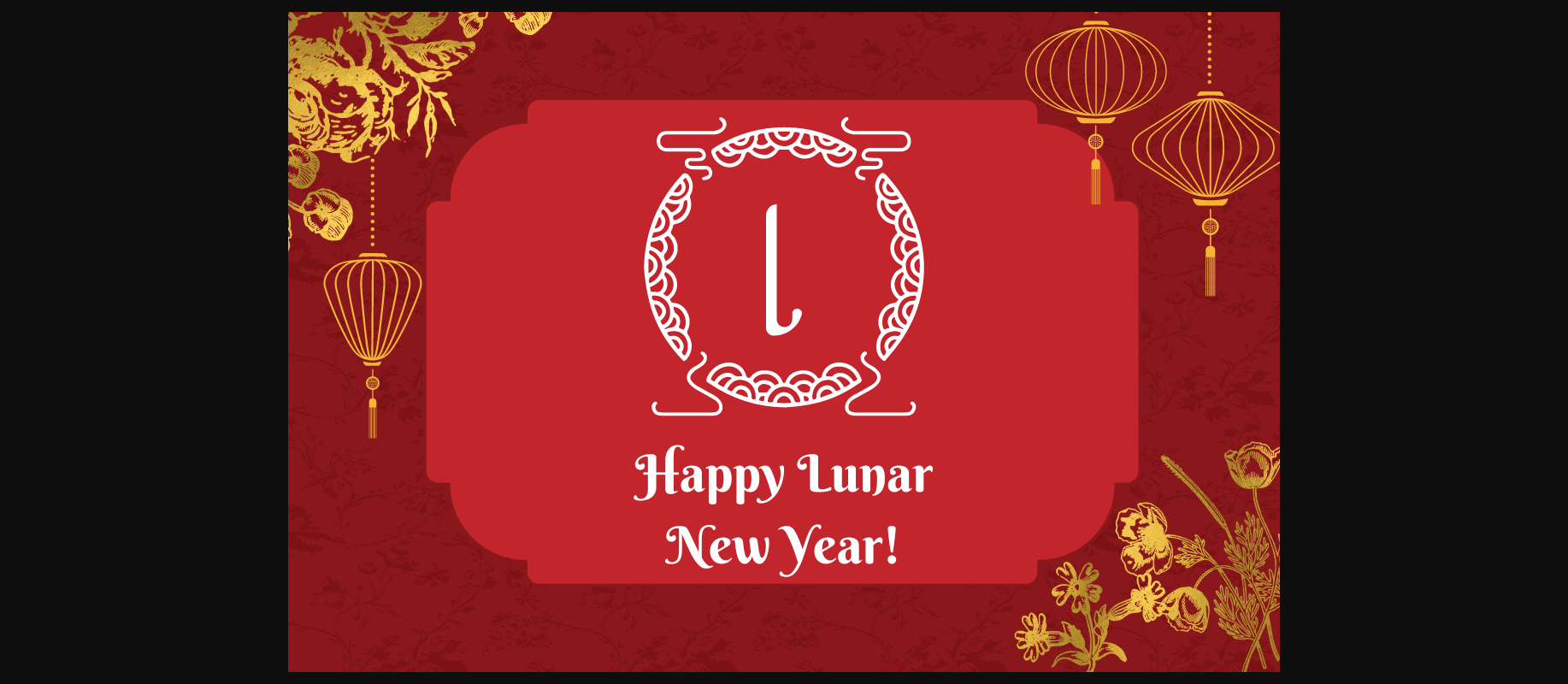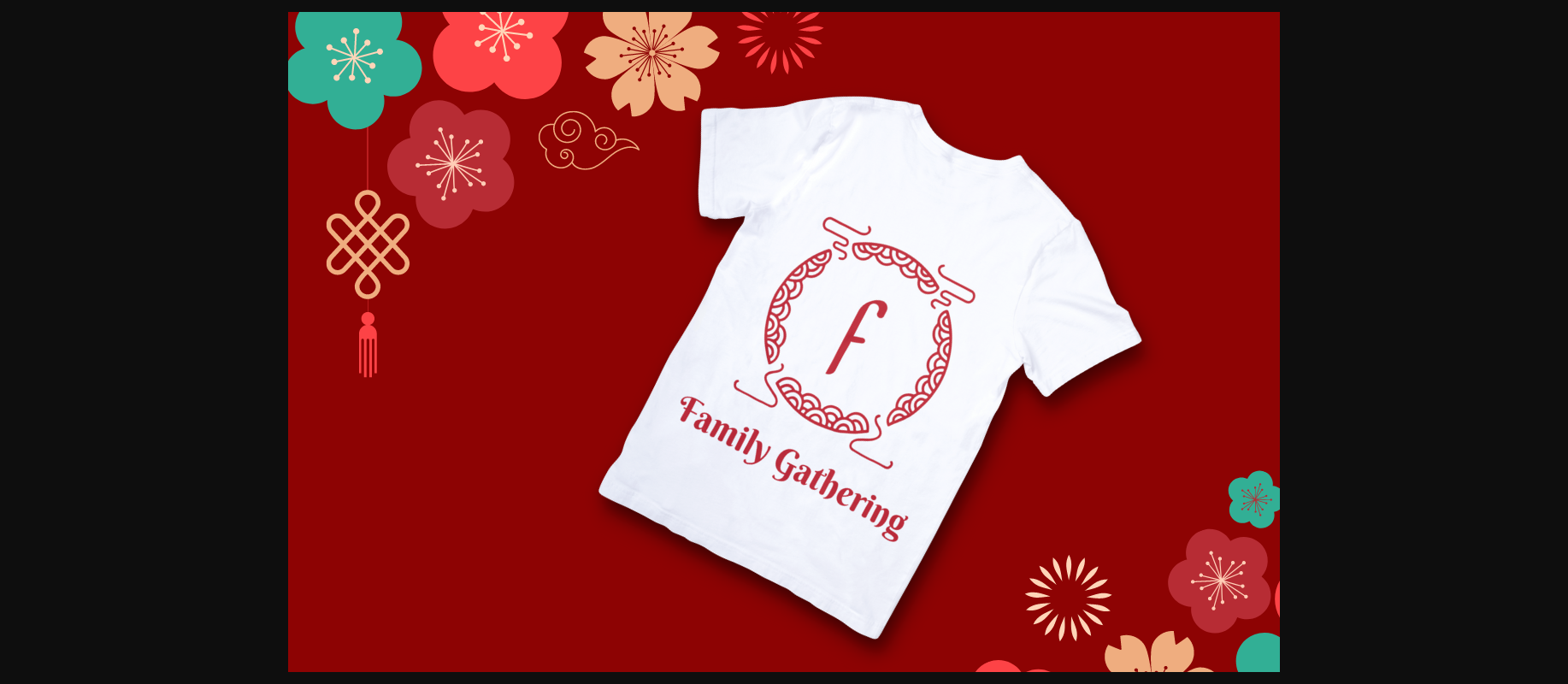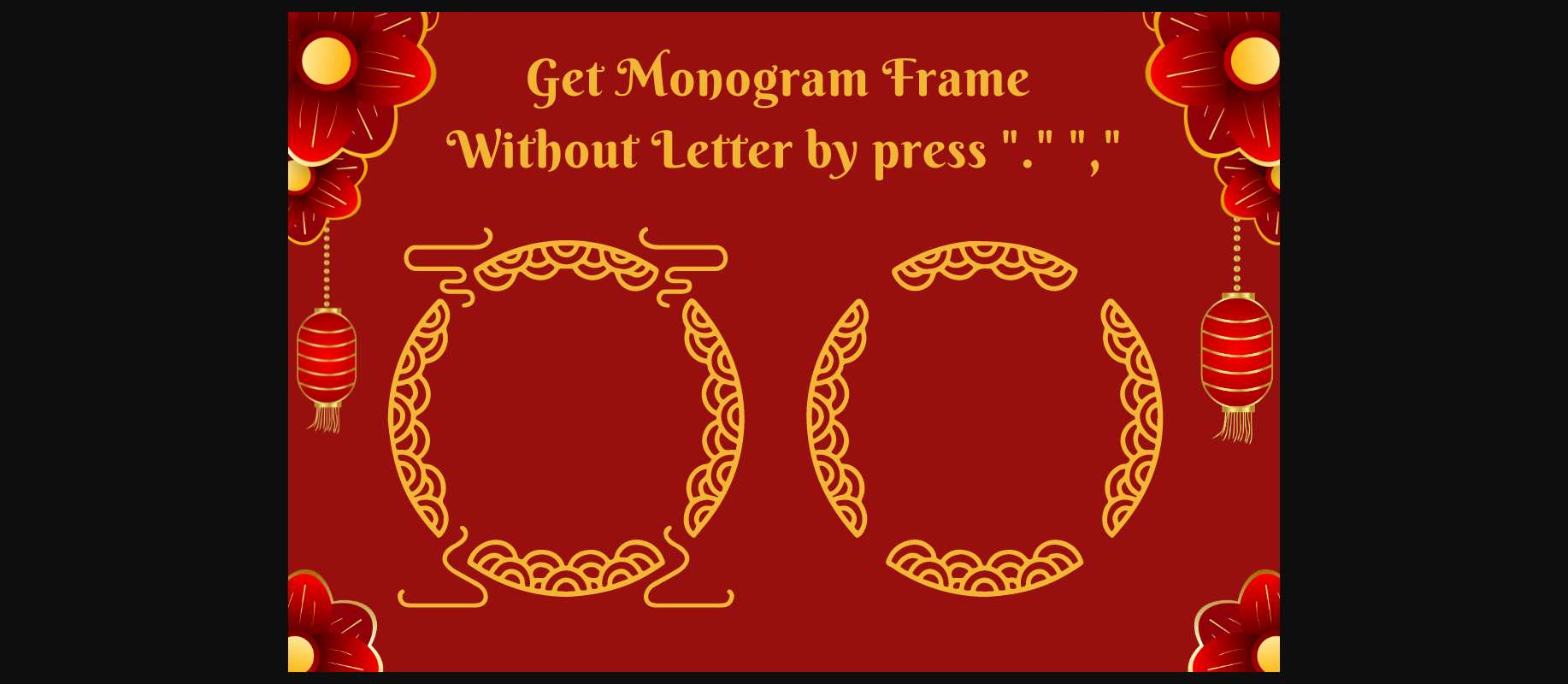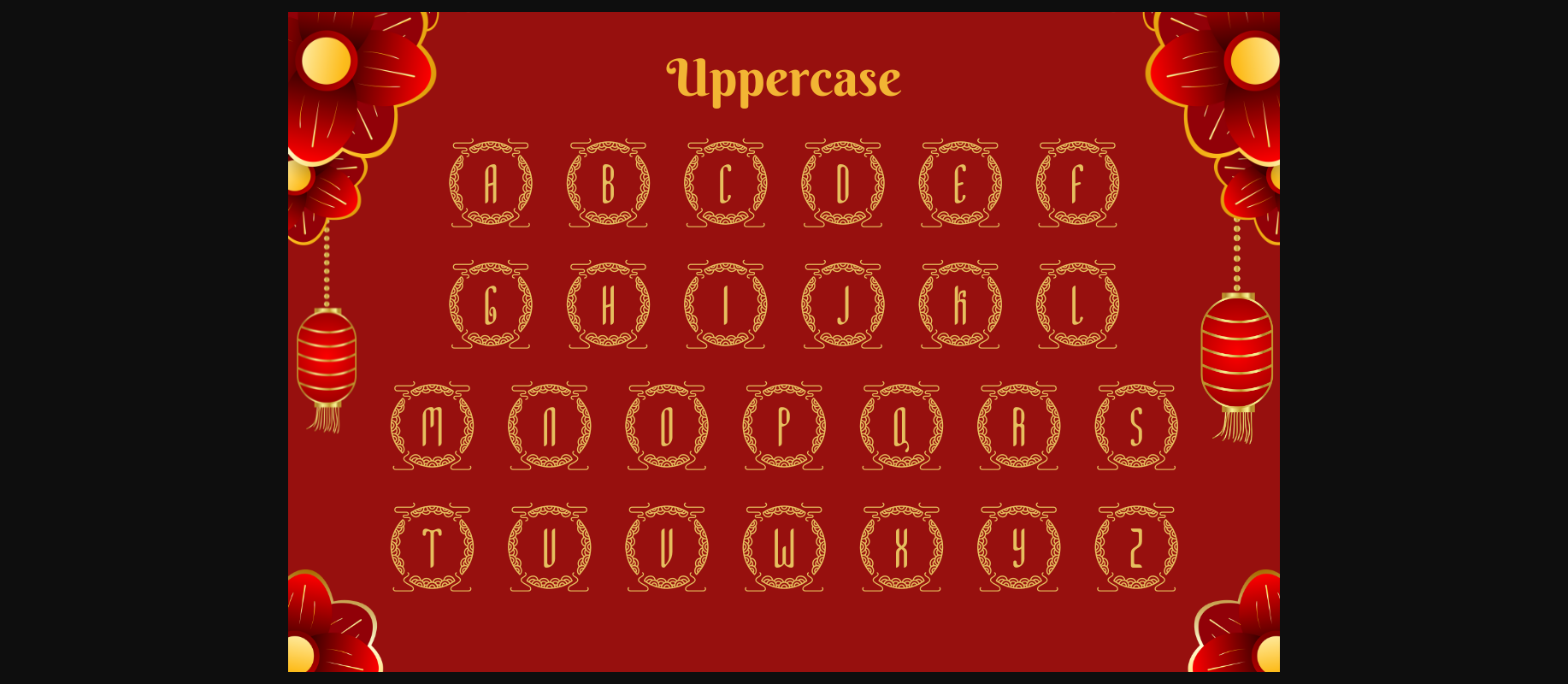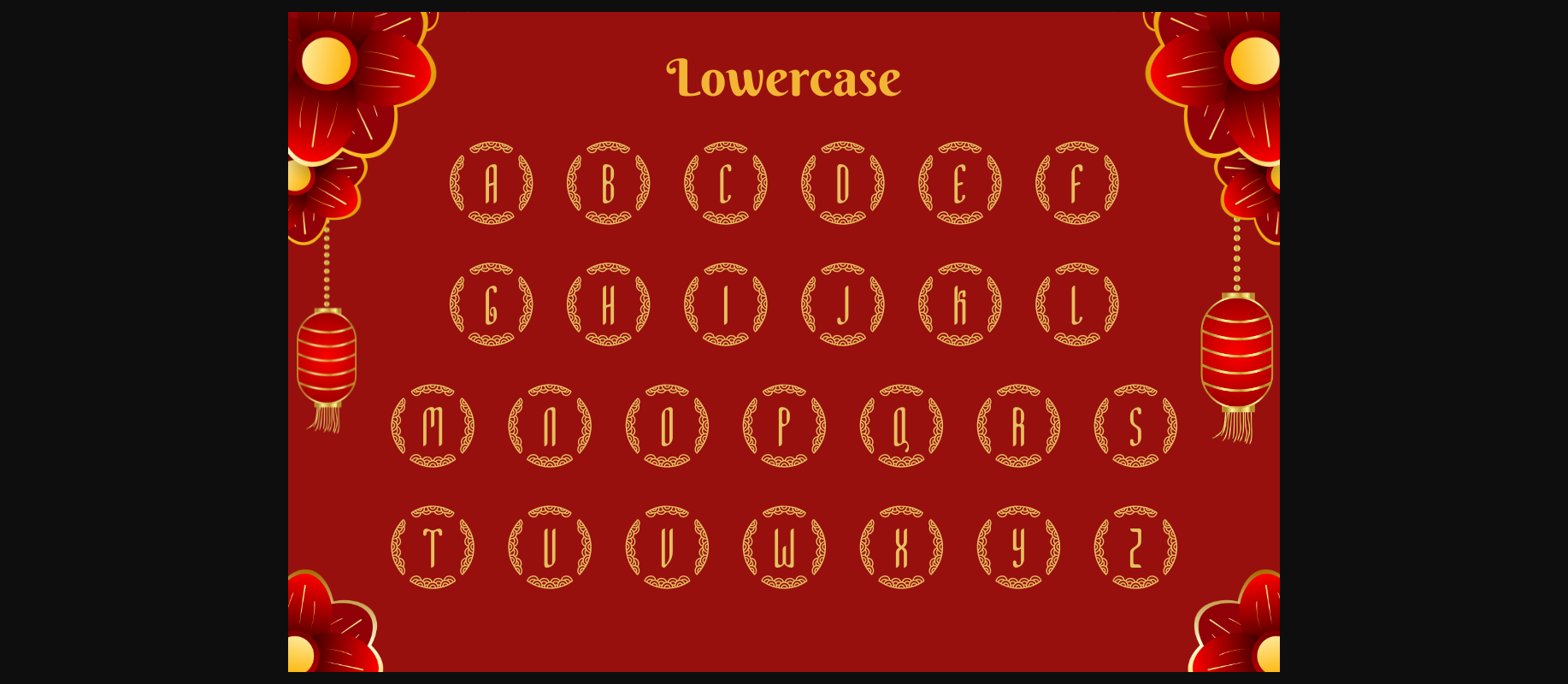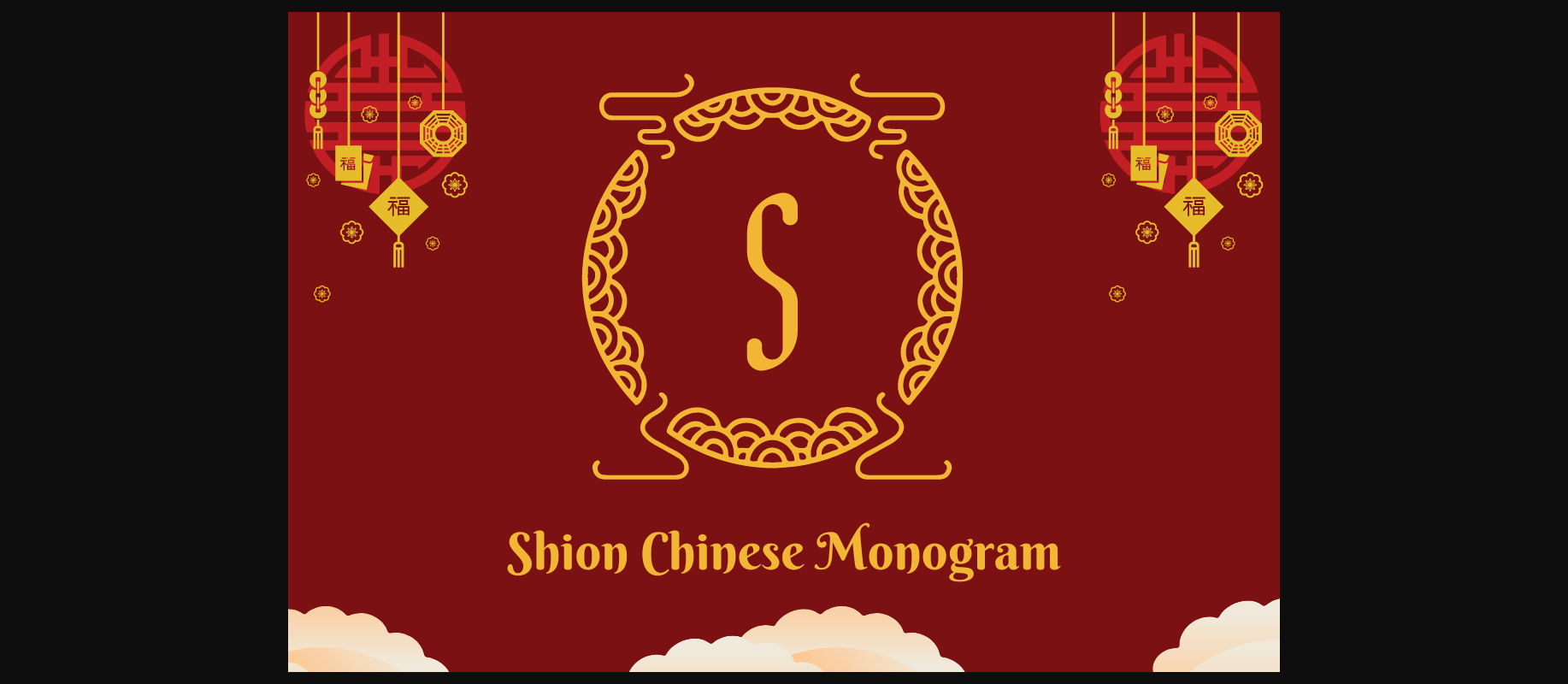
About Shion Chinese Monogram Font
Shion Chinese Monogram is a Circle decorative font.
This font can be used to make Chinese new year themed gifts, including textiles, gifts for kids, and gifts for a new homeowner, a Chinese family, or anyone with a love of monograms.
Comes in 2 styles.
Just simply change between uppercase and lowercase to see the different styles!
This font can be used to make Chinese new year themed gifts, including textiles, gifts for kids, and gifts for a new homeowner, a Chinese family, or anyone with a love of monograms.
Comes in 2 styles.
Just simply change between uppercase and lowercase to see the different styles!